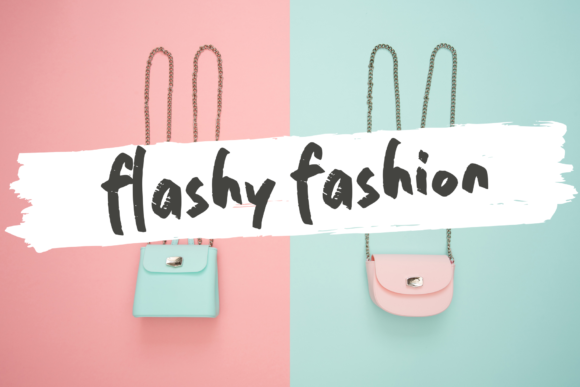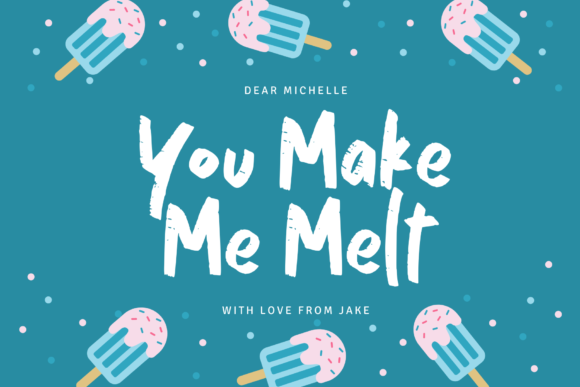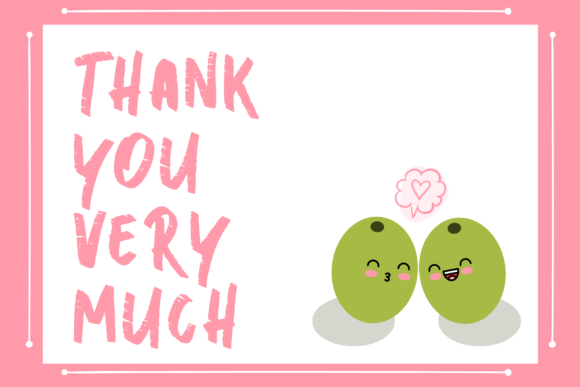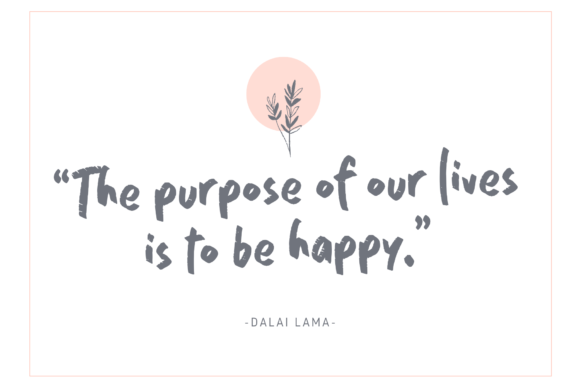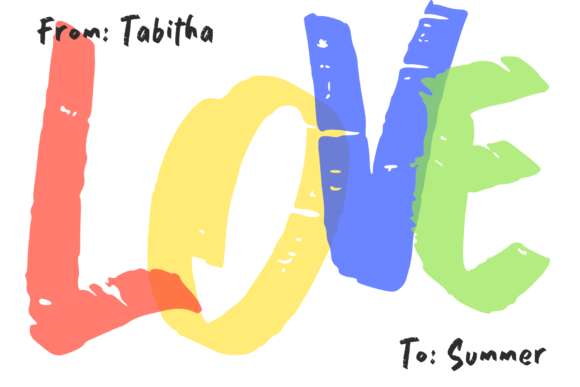
Adinda Font
About Adinda Font
Adinda is a lovely brushed script font featuring charming, playful characters that seem to dance along the baseline. Add this font to your most creative ideas, and notice how it makes them stand out!